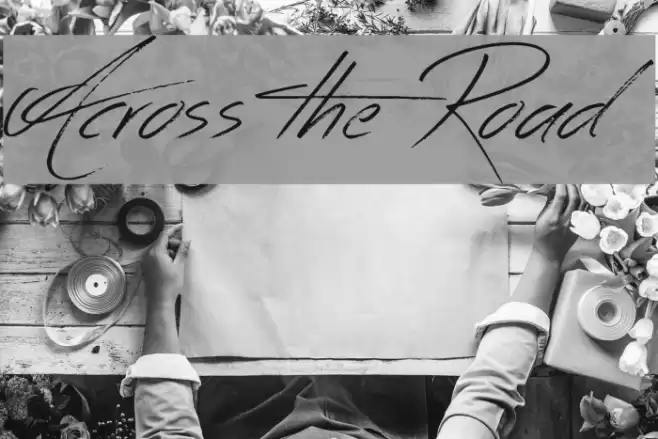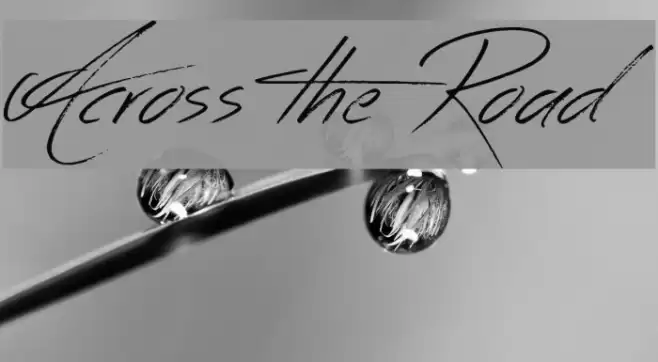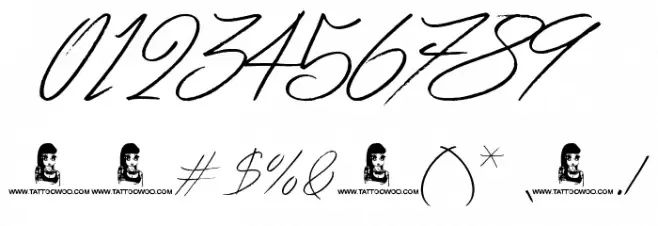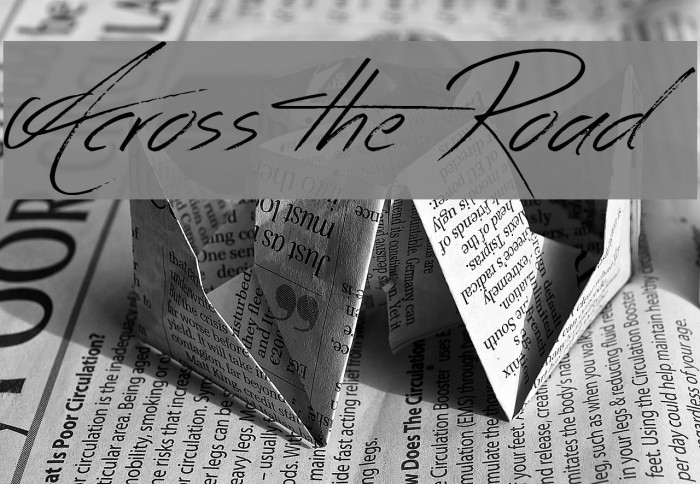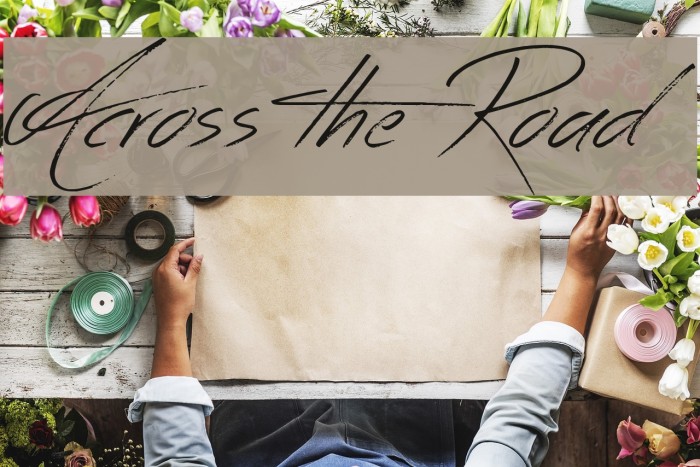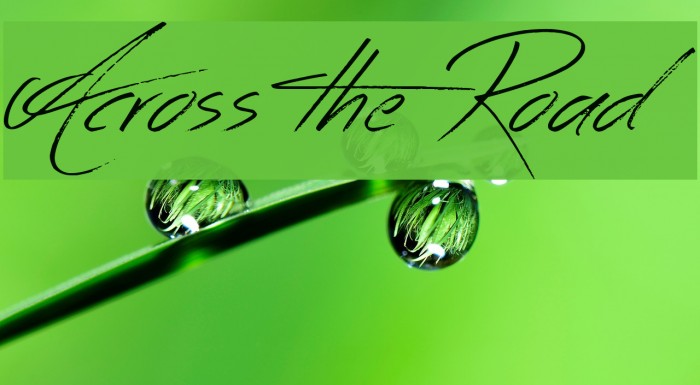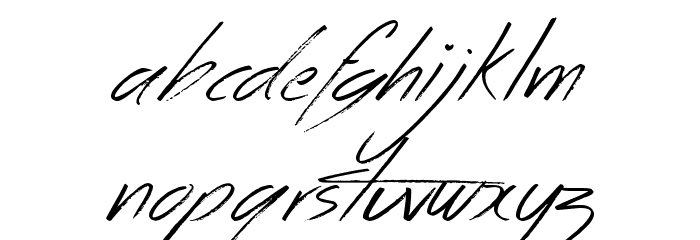
Across the Road Font
Across the Road Description
This font features a dynamic and expressive style with a handwritten appearance. The strokes are fluid and slightly irregular, giving it a personal and artistic feel. The uppercase letters are bold and sweeping, while the lowercase letters maintain a consistent flow, enhancing the overall aesthetic. The numbers and special characters are crafted with the same attention to detail, ensuring a cohesive look across all elements. This font is ideal for projects that require a touch of elegance and individuality, such as invitations, branding, and creative designs.
A dynamic, handwritten-style font with fluid strokes and artistic flair from Handwritten fonts.
- Proposed Projects: Ideal for invitations, branding, artistic projects, and creative designs.
- Use Case: Logos, Headlines, Artistic projects